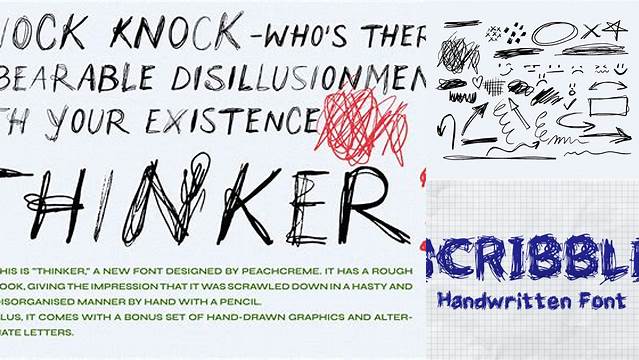
Thinker Scribble Font is a unique and playful typeface that mimics the look of hand-drawn scribbles. It's perfect for adding a touch of whimsy and informality to your designs. Whether you're working on a children's book, a quirky advertisement, or a creative project that needs a personal touch, Thinker Scribble Font can be an excellent choice. In this article, we'll explore what makes this font special, where you can find it for free, and how to make the most of it in your design projects.
What is Thinker Scribble Font?
Thinker Scribble Font is designed to replicate the appearance of spontaneous, hand-drawn scribbles. Unlike traditional fonts that aim for clean lines and perfect shapes, this font embraces imperfection. Each character looks as though it was quickly jotted down with a pen or pencil, giving it a raw, authentic feel. This makes it particularly useful for projects that require a human touch or a sense of playfulness.
The font typically includes a full set of uppercase and lowercase letters, numbers, and punctuation marks. Some versions may also include additional glyphs or stylistic alternates to enhance its versatility. The overall effect is a font that feels both casual and creative, making it stand out from more conventional typefaces. When you're aiming for a design that breaks away from the ordinary, Thinker Scribble Font can be a fantastic asset.
The charm of Thinker Scribble Font lies in its ability to evoke a sense of nostalgia and childlike wonder. It reminds us of doodles in notebooks, handwritten notes, and the simple joy of drawing. This makes it particularly effective for projects that target children or aim to create a warm, inviting atmosphere. Using this font can instantly add character and personality to your designs, setting them apart from the crowd.
Creative Uses for Thinker Scribble Font
Thinker Scribble Font can be used in a variety of creative projects to add a unique and playful touch. Its informal and hand-drawn style makes it perfect for designs that need a personal and approachable feel. Here are some ideas on how to incorporate Thinker Scribble Font into your work.
Thinker Scribble Font is a fun and unique typeface that can add a touch of whimsy and personality to your design projects. Whether you’re working on a children’s book, an invitation, or a branding campaign, this font can help you create a memorable and engaging design. By following the tips in this article, you can use Thinker Scribble Font effectively and make the most of its creative potential. Remember to always check the font license before downloading and using it, and be mindful of readability, contrast, and context to achieve the best results. Happy designing, guys!